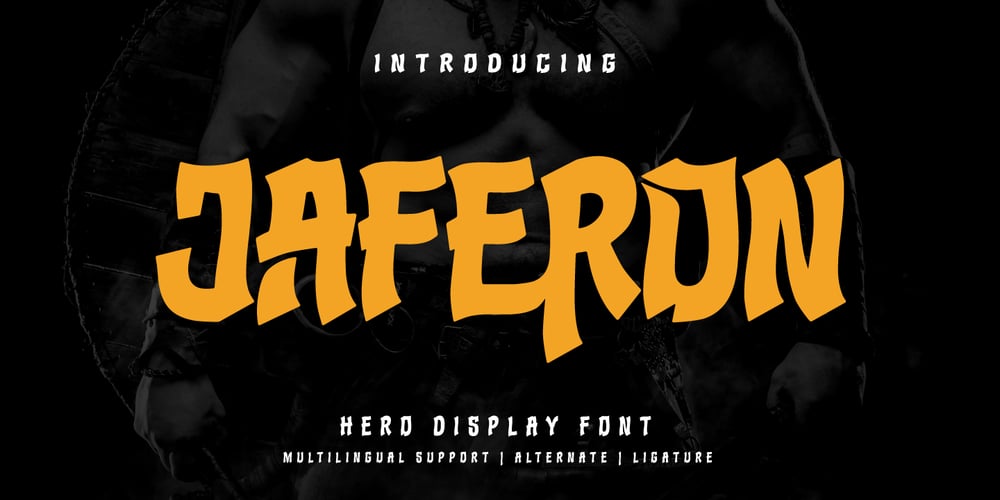
Jaferon
Jaferon font
Jaferon Font Family was designed by Rozikan and published by Twinletter. Jaferon contains 3 styles and family package options. Jaferon is a display font that comes with a stunning superhero style. Ready to take the lead in projects that call for a bold, bold touch and a bold look.What’s Included : File font All glyphs Iso Latin 1 Alternate, Ligature Simple installations PUA Encoded Characters – Fully accessible without additional design software. Fonts include Multilingual support